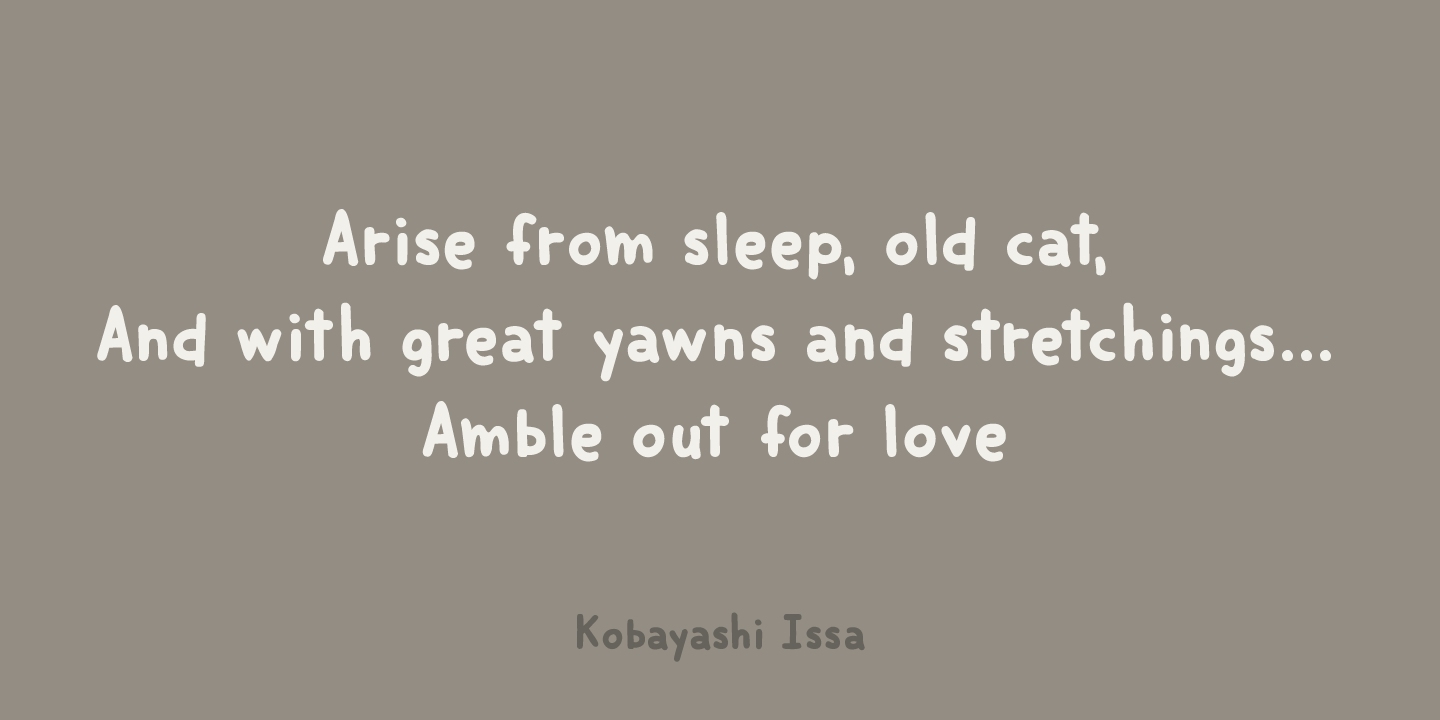
The Smiling Cat Font excels in various design applications including playful pet store branding, cheerful cat cafe signage, delightful veterinary clinic communications, whimsical children's book layouts, adorable pet product packaging, happy animal shelter materials, charming cat grooming service identities, joyful pet daycare promotions, cute feline-themed greeting cards, and heartwarming pet projects that demand feline playfulness and cat sophistication.
What makes the Smiling Cat Font exciting is its adorable embodiment of feline charm and playful cat personality through letterforms that capture the essence of happy cats and the delightful joy that comes from feline companionship. This typeface demonstrates exceptional warmth through carefully crafted characters that suggest the gentle curves of cat silhouettes, the playful nature of kitten antics, and the loving contentment that makes cats such beloved companions and sources of endless joy. The font's feline personality makes it perfect for pet businesses and animal welfare organizations seeking to communicate cat-friendly warmth, playful charm, and the kind of adorable appeal that creates memorable pet experiences through typography that literally purrs with feline happiness.
The Smiling Cat Font family typically includes playful weight variations that enhance the feline aesthetic, featuring whimsical styling options and extended character sets optimized for pet communications and animal-themed applications. These family options often include cat-inspired alternates, feline symbols, and playful decorative elements that provide designers with comprehensive tools for creating authentically cat-loving typography that celebrates feline culture while maintaining contemporary design appeal and pet industry credibility.
Pet industry professionals and animal welfare organizations consistently choose Smiling Cat Font Free Download for projects requiring typography that communicates feline authenticity and cat-loving charm. This typeface delivers exceptional performance in pet marketing, animal branding, and cat-themed communications where establishing warmth and creating adorable atmosphere is essential for pet lover engagement. The font's cat character makes it particularly effective for veterinary and pet care applications. Download Smiling Cat Font Free Download today to access this delightful typeface that transforms pet communications with its feline charm and cat sophistication, creating compelling animal experiences that celebrate the magnificent joy of cat companionship while maintaining the playful warmth that makes feline culture so irresistibly adorable and genuinely heartwarming.